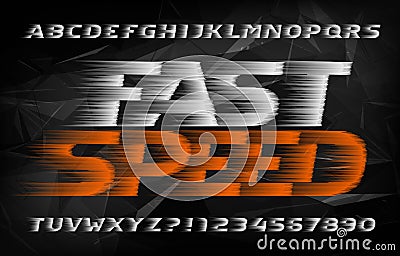
Fast Speed Alphabet Font. Wind Effect Type Letters And Numbers On Dark Polygonal Background. Cartoon Vector
Fast Speed alphabet font. Wind effect type letters and numbers on dark polygonal background. #153108303
Fast Speed alphabet font. Wind effect type letters and numbers on dark polygonal background. Stock vector typescript for your design.